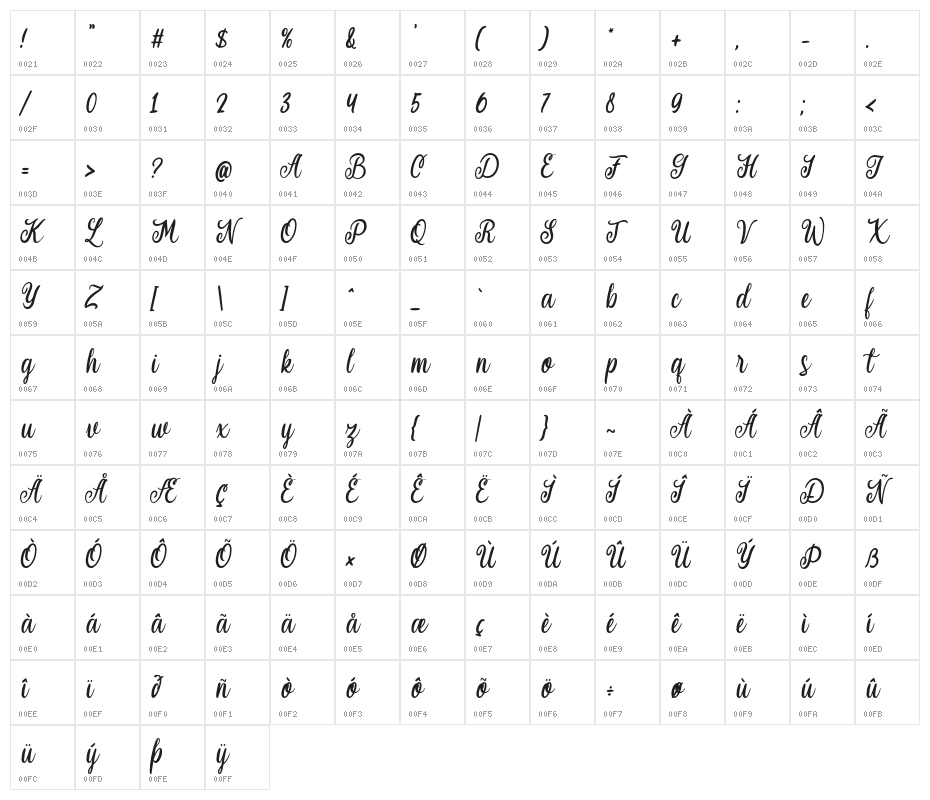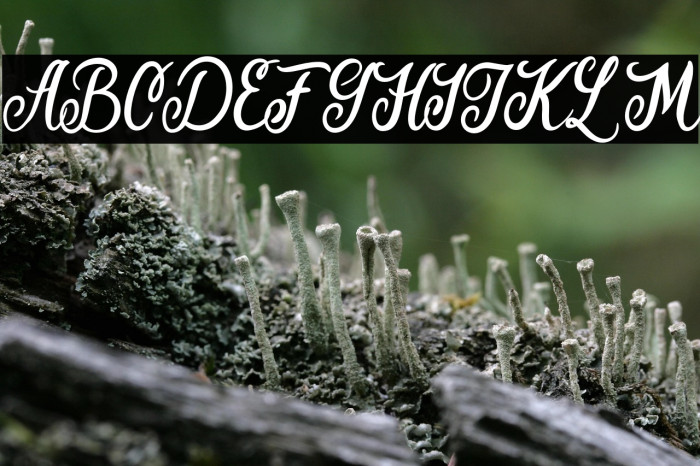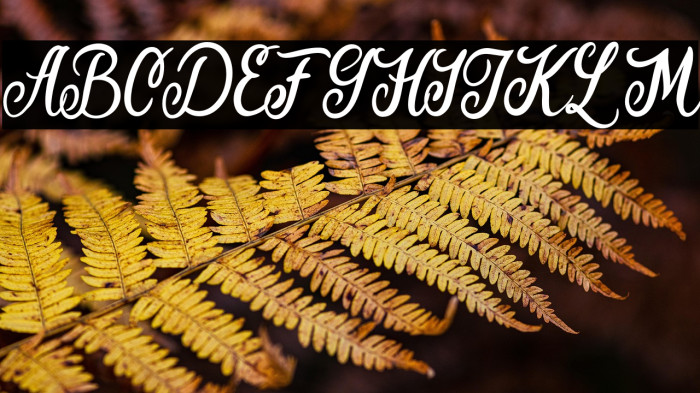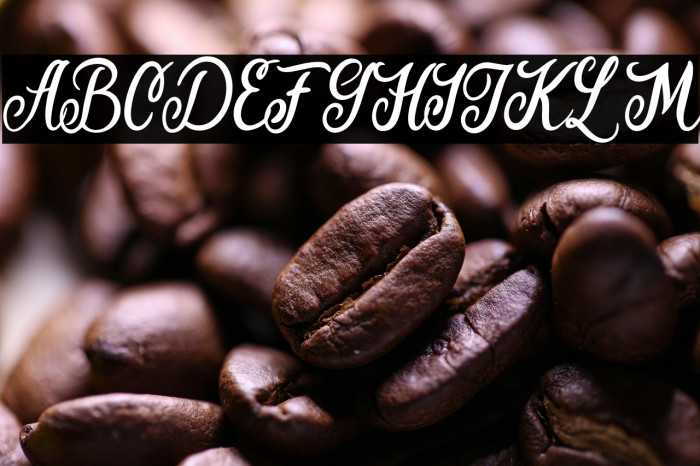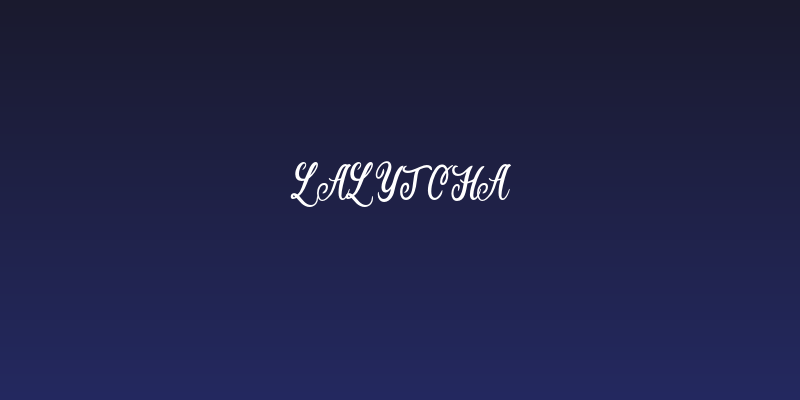
Lalytcha Font
Lalytcha Description
This font features an elegant and flowing script style, characterized by its smooth, cursive letterforms that exude a sense of sophistication and grace. The uppercase letters are ornate, with intricate swirls and loops that add a decorative touch, while the lowercase letters maintain a consistent fluidity, enhancing readability. The numerals and special characters are crafted with the same attention to detail, ensuring a cohesive appearance across all text. The overall design is reminiscent of traditional calligraphy, making it suitable for projects that require a touch of elegance and refinement.
| Overall Style | Classic |
| Use Case | Logos, Headlines, Invitations |
| Proposed Projects | Ideal for wedding invitations, elegant branding, greeting cards, and upscale packaging. |